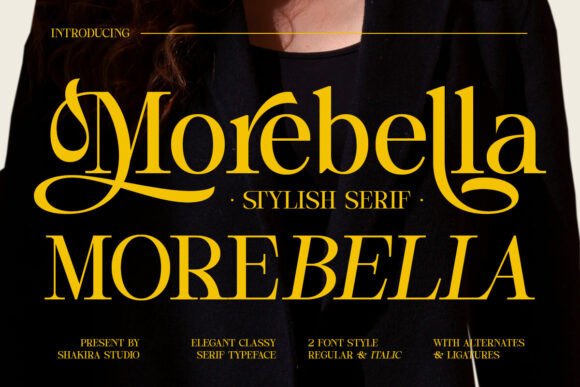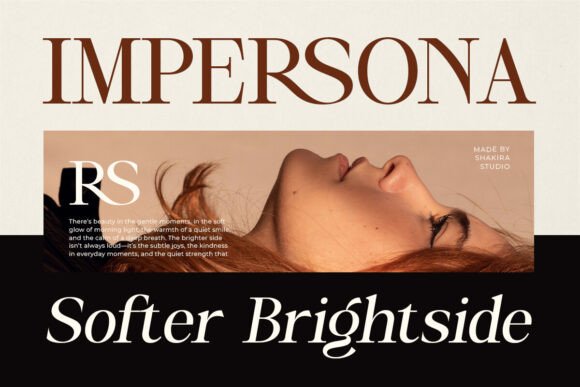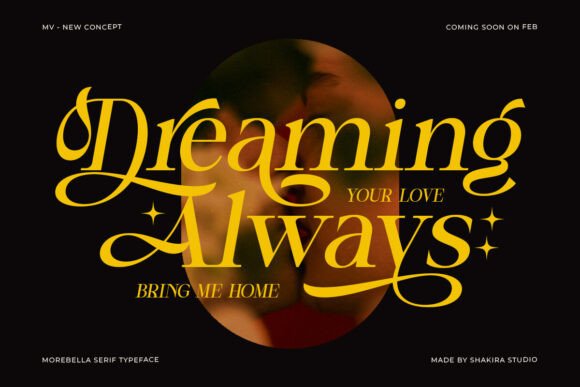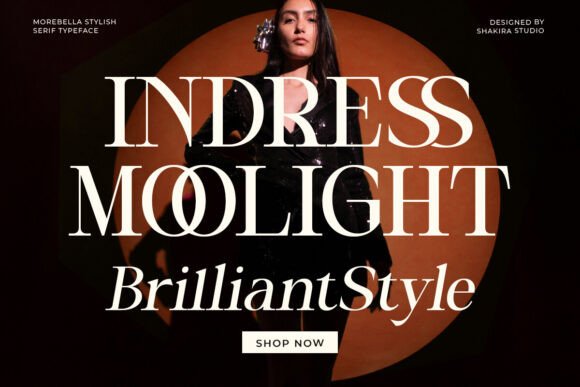
Morebella Font: Elegant Serif Typography for Luxury Branding
About the Morebella Font
Get ready to be inspired by Morebella Font, a fresh and dynamic typeface for modern creators. Morebella is a serif typeface that exudes elegance and luxury. With Regular and Italic variants, along with stylish alternates and ligatures, this font is perfect for high-end design projects such as branding, posters, magazines, and print materials.
Designed for graphic designers and branding professionals, Morebella offers high flexibility and precise details. Elevate your designs with Morebella, and make every project stand out with a timeless, elegant touch.
Morebella’s elegant serif design is ideally suited for headlines, logos, and short-form text in branding materials, high-end packaging, and invitations. Its refined details shine in posters and print advertisements where visual impact is key. However, its intricate letterforms are less suitable for body copy or extended text blocks, such as long-form articles or website content. Avoid using it in user interfaces (UI) where readability at small sizes is paramount.
Pairing Morebella effectively requires considering its inherent sophistication. A clean sans-serif like Montserrat or Lato provides a strong contrast and enhances readability when used for supporting text. For a more luxurious feel, consider pairing it with a script font like Great Vibes, but use it sparingly to avoid visual overload.
Morebella projects an air of sophisticated elegance and timeless luxury. It’s the perfect choice for brands aiming to communicate exclusivity and high quality, such as jewelry, fashion, or premium spirits.
Morebella Font Usage Examples
Morebella Font Example